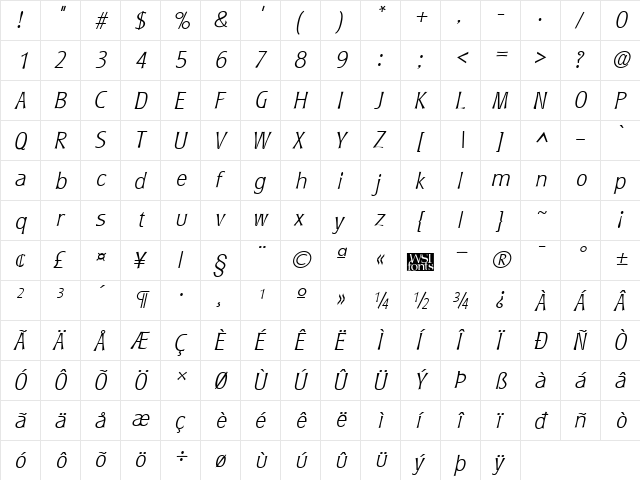
Design Context for RyndersExtralight Typeface
RyndersExtralight is a composed and adaptable typeface that performs quietly and consistently across a wide range of design contexts. Its italic angle brings a sense of urgency and motion to the letterforms. Its slender proportions lend an understated elegance to any composition.
Pro Tip: Try RyndersExtralight for annotation and caption copy alongside an upright companion — the contrast in angle creates a dynamic but ordered typographic system.